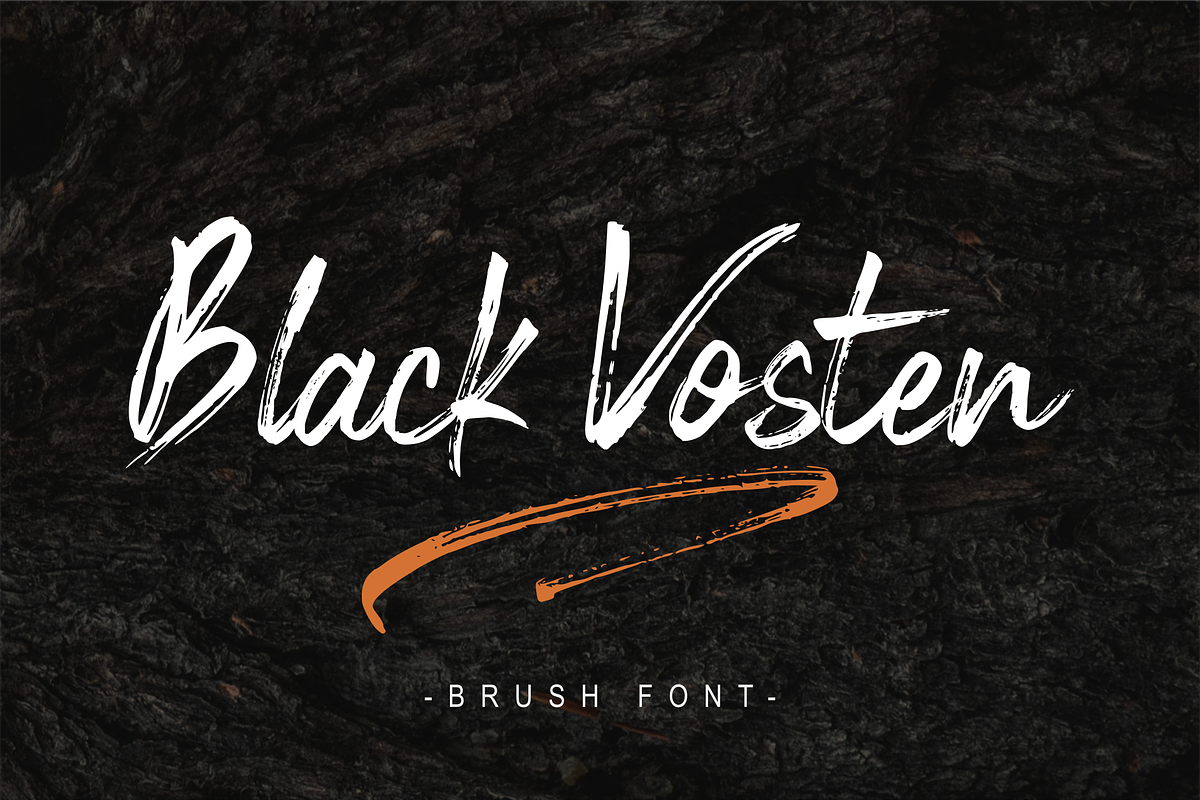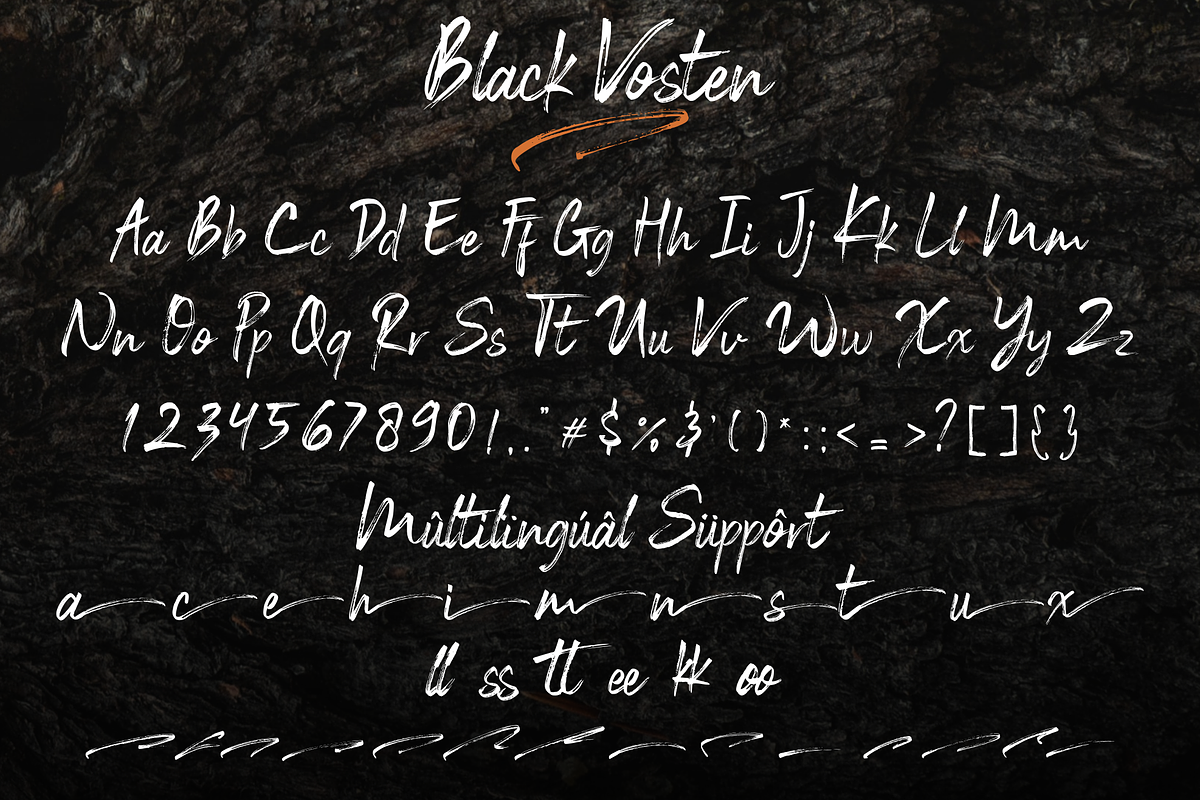
Black Vosten - Brush Font
Black Vosten is a textured brush font with a contemporary design style. Made with a brush on paper, then scanned and carefully drawn into vector format. It has a charming, authentic and relaxed feeling and is perfect for adding a natural touch to your design. Fall in love with unique and authentic letters!